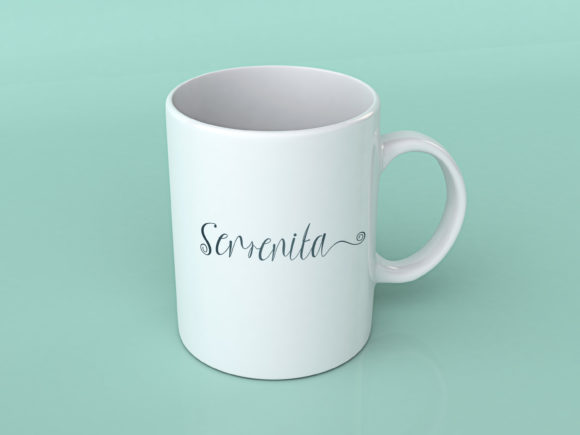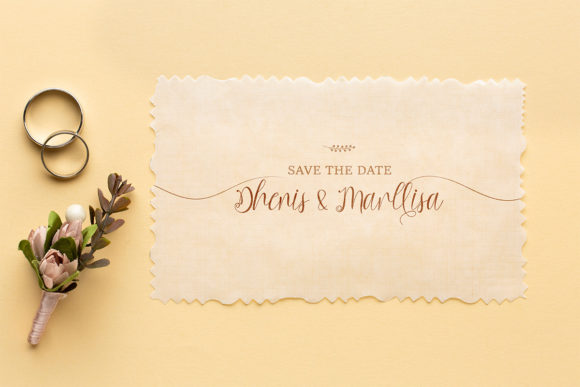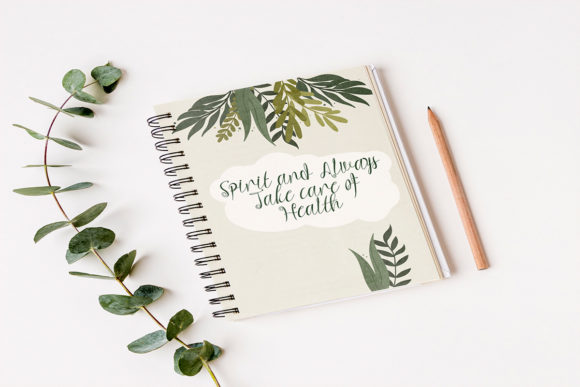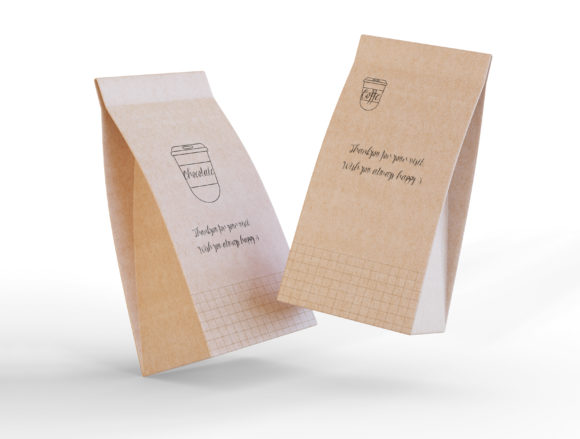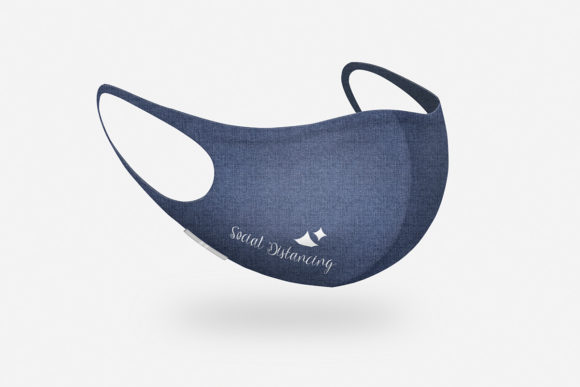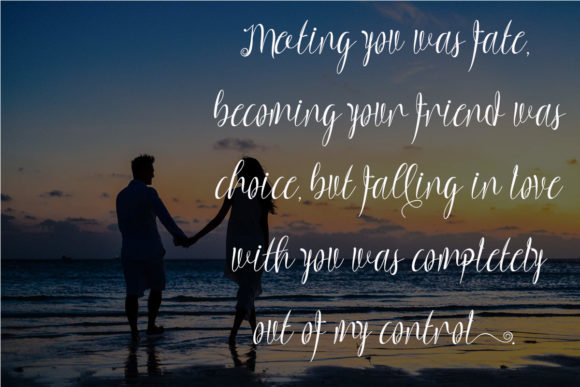
Discover the Timeless Elegance of Charllona Font
Are you a designer or crafter looking for a font that exudes classic style and friendliness? Look no further than Charllona Font. This beautiful and unique typeface is perfect for creating original and outstanding designs that will leave a lasting impression. In this article, we’ll dive into the world of Charllona Font and explore its features, benefits, and uses.
The Classic Style of Charllona Font
Charllona Font boasts an incredibly classic style that is reminiscent of traditional typography. Its elegant lines, curves, and proportions evoke a sense of nostalgia and sophistication. The font’s classic design makes it suitable for a wide range of applications, from luxury branding and advertising to packaging and editorial design.
A Friendly Feel
While Charllona Font has a classic style, it’s not stuffy or formal. The font has a friendly feel that makes it approachable and inviting. This balance of elegance and approachability makes Charllona Font perfect for designers who want to create designs that are both sophisticated and relatable.
Perfect for Original and Outstanding Designs
Charllona Font is designed to help you create original and outstanding designs. Its unique character set and elegant style ensure that your designs stand out from the crowd. Whether you’re creating a logo, brochure, or website, Charllona Font is the perfect choice for designers who want to make a statement.
Key Features of Charllona Font
- Classic style: Charllona Font features an incredibly classic style that’s perfect for traditional and modern designs.
- Unique character set: The font has a unique character set that ensures your designs stand out from the crowd.
- Friendly feel: Charllona Font has a friendly feel that makes it approachable and inviting.
- Multilingual support: The font supports multiple languages, making it perfect for global brands and designers.
Benefits of Using Charllona Font
Using Charllona Font in your designs offers a range of benefits, including:
- Improved brand recognition: Charllona Font’s unique style ensures that your brand stands out from the competition.
- Increased design efficiency: The font’s elegant style and friendly feel make it easy to use and pair with other fonts.
- Enhanced creativity: Charllona Font’s classic style and unique character set inspire creativity and imagination.
Using Charllona Font in Your Designs
Charllona Font is versatile and can be used in a variety of design applications, including:
- Logo design: Charllona Font is perfect for creating elegant and sophisticated logos.
- Branding and advertising: The font’s classic style and friendly feel make it suitable for branding and advertising campaigns.
- Packaging design: Charllona Font is ideal for packaging design, adding a touch of elegance and sophistication to product packaging.
- Editorial design: The font’s elegant style makes it perfect for editorial design, including magazines, newspapers, and books.
Charllona Font is a beautiful and unique font that offers a perfect blend of classic style and friendliness. Its elegant lines, curves, and proportions make it suitable for a wide range of design applications. Whether you’re a designer or crafter, Charllona Font is the perfect choice for creating original and outstanding designs. With its key features, benefits, and versatility, Charllona Font is sure to become a staple in your design toolkit.